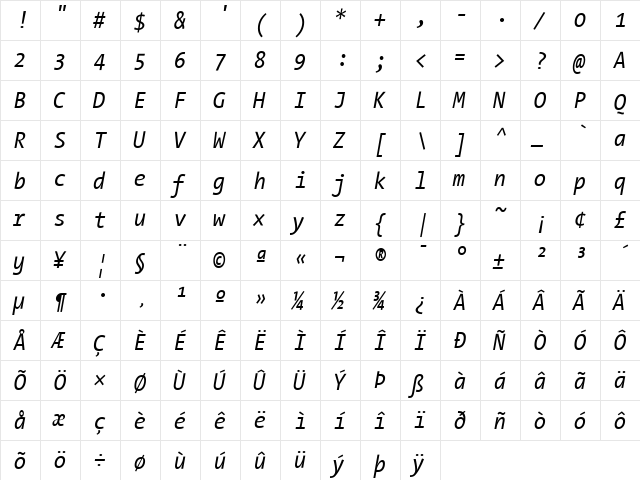
The Sans Mono Condensed- Italic
Italic · Luc\ as\ de Groot  ·
Foundry Luc\ as\ de Groot
Design Context for The Sans Mono Condensed- Typeface
The Sans Mono Condensed- brings the precise, column-aligned rhythm of monospaced typography to designs that value technical clarity and systematic order. The slanted form adds forward momentum and visual energy.